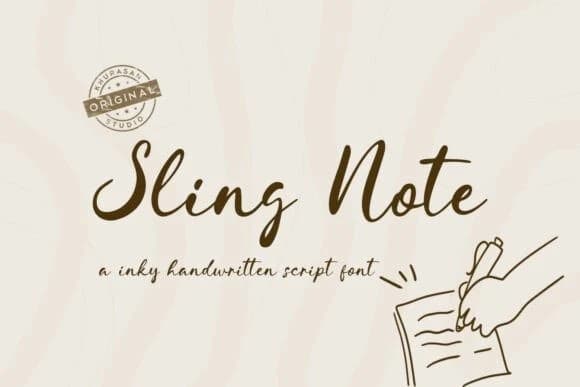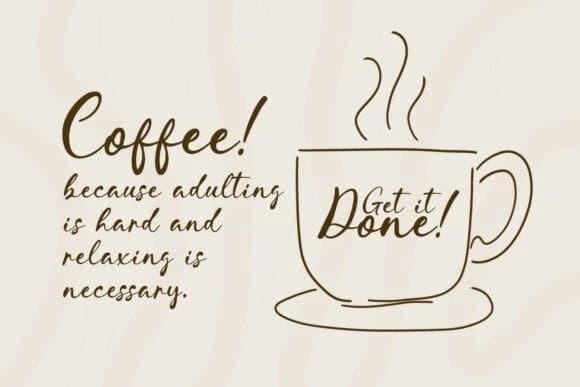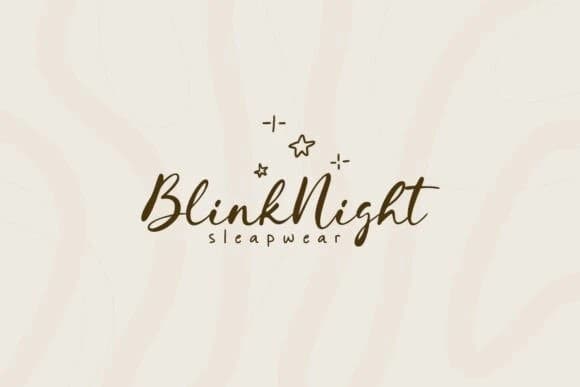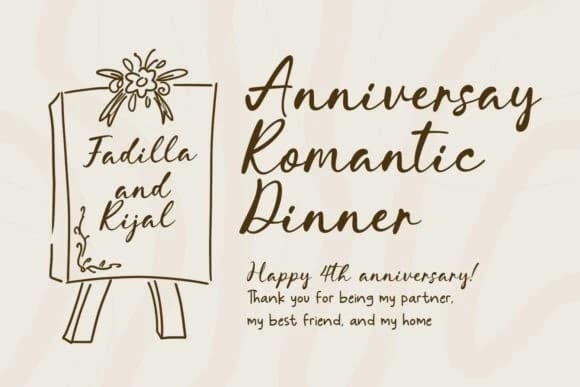
Sling Note Font
Sling Note Font is a script handwriting font with a natural brush effect, designed to capture the beauty of real hand-lettering. Every stroke feels alive — smooth, expressive, and full of personality. It delivers an authentic handwritten charm that makes your designs feel warm, stylish, and premium.
Sling Note